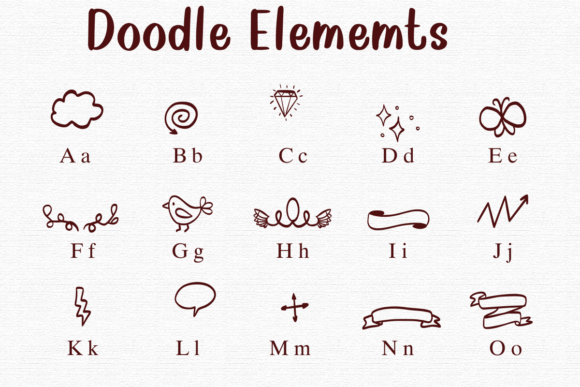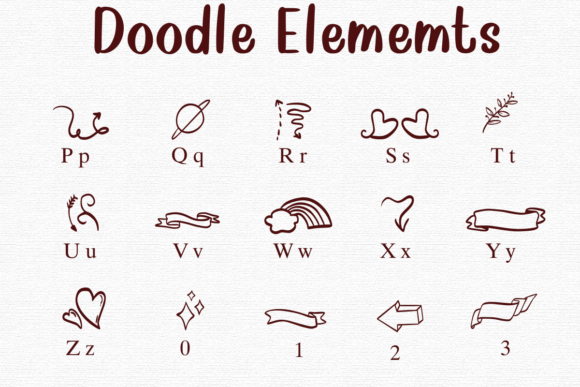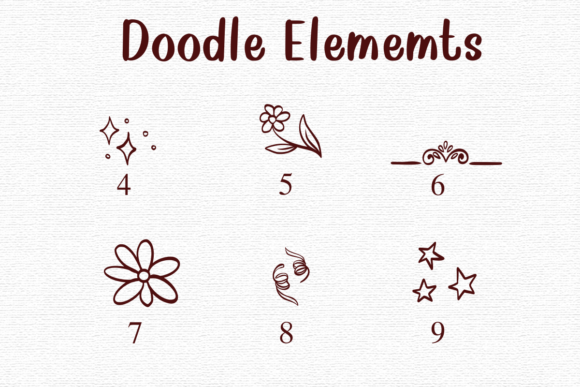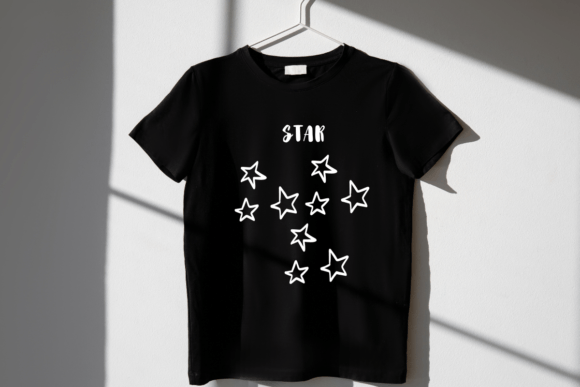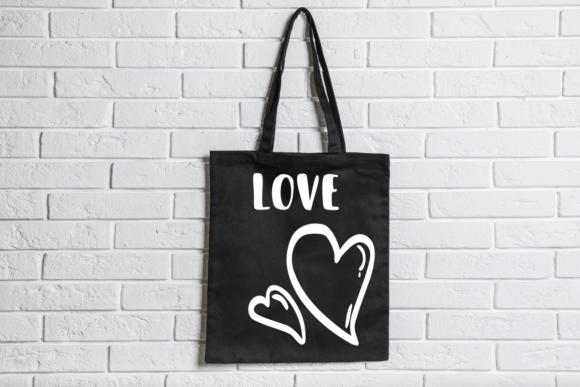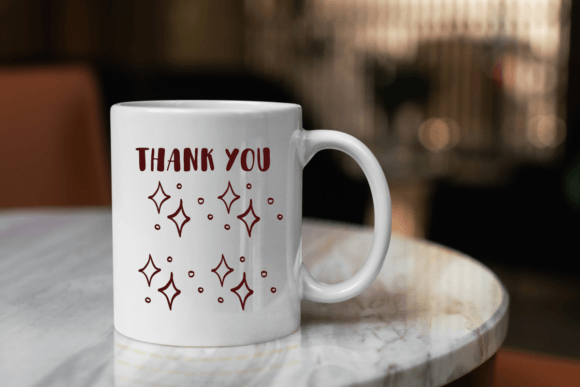
Unlock Your Creative Potential with Doodle Elements Font
Have you ever stared at a blank piece of paper, struggling to find the perfect design to bring your creative vision to life? We’ve all been there. But what if you had the perfect tool to spark your imagination and turn your ideas into reality? Introducing the Doodle Elements Font, a versatile dingbats font that will revolutionize the way you approach your creative projects.
With its sketch-style design, Doodle Elements Font is the perfect addition to your design arsenal. Whether you’re crafting wedding invitations, DIY projects, or decorations, this font will add a personal touch that sets your work apart. As a designer, you know how valuable it is to have the right tools to bring your ideas to life, and the Doodle Elements Font is no exception.
Doodle Elements Font Key Features
- Unique Hand-Drawn Style: Doodle Elements Font features a unique hand-drawn style, making it perfect for adding a personal touch to your designs.
- Character Set: The font includes a wide range of characters, including uppercase and lowercase letters, numbers, and punctuation marks.
- Customizable: Doodle Elements Font is fully customizable, allowing you to adjust the size, color, and style to suit your design needs.
- Scalable: The font is designed to be scalable, making it perfect for use in a variety of contexts, from small text to large headings.
Doodle Elements Font Review
At first glance, the Doodle Elements Font catches your attention with its whimsical, playful feel. ✨ It’s a great choice for designs that need a touch of childlike wonder or a dash of hand-drawn charm. The font is highly customizable, allowing you to mix and match different doodle elements to create unique combinations. ✨ This versatility is a major strength, making it suitable for a wide range of projects, from children’s books to social media graphics.
However, there are some limitations to consider. ⚠️ One of the main concerns is the potential for overuse. The font’s doodle elements can quickly become overwhelming if not used thoughtfully. Additionally, the font’s customization options can sometimes lead to a cluttered, busy appearance. ⚠️ To get the most out of this font, it’s essential to balance the doodles with clear typography and a well-designed layout.
Overall, I’d say the Doodle Elements Font is a great addition to any designer’s toolkit. With some careful consideration and restraint, it can add a delightful touch to your designs. ✨ Just be mindful of its potential pitfalls, and you’ll be creating beautiful, whimsical designs in no time.
Pros and Cons:
- ✨ Highly customizable
- ✨ Versatile and suitable for various projects
- ⚠️ Potential for overuse
- ⚠️ Customization options can lead to cluttered appearance
Getting the Most Out of the Doodle Elements Font
Here are some tips for getting the most out of the Doodle Elements Font:
Use the font in conjunction with other creative assets, such as illustrations and graphics.
Experiment with different font sizes and colors to create a unique look.
Use the font to create a consistent brand identity across all your designs.
The Doodle Elements Font is perfect for:
Creative and artistic projects, such as posters, infographics, and logos.
Designing children’s books, educational materials, and other content for young audiences.
Creating unique and playful branding for
Alternatives to Doodle Elements Font
Doodle Elements Font is a popular font choice among designers due to its playful, handwritten feel. However, it may not be the best fit for every project. Here are a few alternatives to consider.